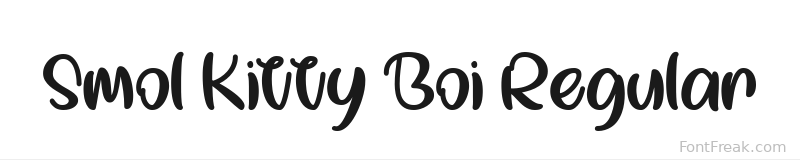
Smol Kitty Boi Regular
About Smol Kitty Boi Regular
Smol Kitty Boi Regular is a delightful display font created by Misti Hammers, characterized by its playful and whimsical style. This font falls into the decorative category, making it an excellent choice for projects that require a touch of charm and personality. The strokes are medium-weight and feature a consistent flow, which gives it a friendly and approachable appearance. The letters are well-spaced, enhancing readability while maintaining an inviting aesthetic. The soft curves and gentle angles add a sense of warmth, making it perfect for a variety of creative applications.
This font is particularly well-suited for use cases such as children’s book covers, playful branding for pet-related businesses, social media graphics, and vibrant event invitations. Its unique character can also elevate designs for merchandise aimed at a younger audience, such as T-shirts or stickers. Graphic designers and content creators will find Smol Kitty Boi Regular to be a versatile addition to their toolkit, providing a cheerful alternative to more traditional fonts.
What sets Smol Kitty Boi Regular apart is its ability to blend charm with functionality. It stands out not only for its aesthetic appeal but also for its versatility across different media. Whether you’re crafting a lighthearted marketing campaign or designing a unique invitation, Smol Kitty Boi Regular font free download opens up a world of creative possibilities, inviting you to explore new design horizons.